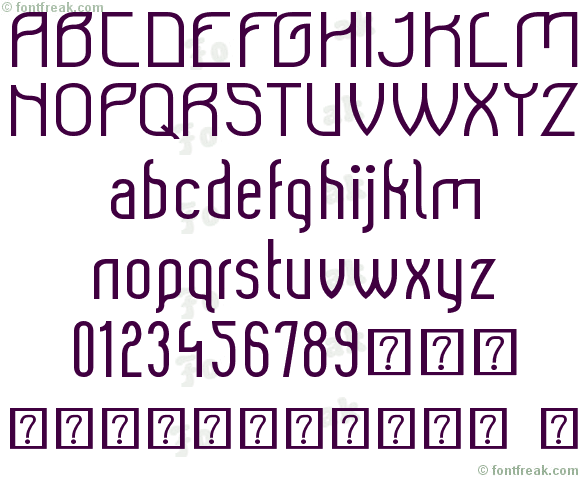
Bee Ridge Demo
About Bee Ridge Demo
The Bee Ridge Demo font by Roland Huse is a captivating display typeface that beautifully blends modern aesthetics with a touch of whimsy. As a decorative font, it features playful curves and unique character shapes that draw the eye and evoke a sense of creativity. The stroke weight varies slightly across the characters, providing a delightful visual contrast that enhances its charm. The spacing is well-balanced, ensuring readability while maintaining an artistic flair.
This font is ideal for a range of creative applications. It shines in wedding invitations, where its unique style can add a personal touch to any romantic theme. Similarly, Bee Ridge Demo works wonderfully for movie posters, infusing a sense of fun and excitement that captures the essence of the film. Restaurant menus can benefit from its decorative flair, making the dining experience feel more inviting and special. Additionally, graphic designers can leverage this font for branding projects aimed at young audiences or businesses that want to convey a playful personality.
What sets the Bee Ridge Demo font apart is its ability to combine playful elements with functional design, making it a standout choice for various creative endeavors. Whether you are crafting a unique flyer or designing a memorable logo, the Bee Ridge Demo font free download provides an excellent option that can elevate your project’s visual impact. Embrace the charm of this font and let it inspire your creativity.